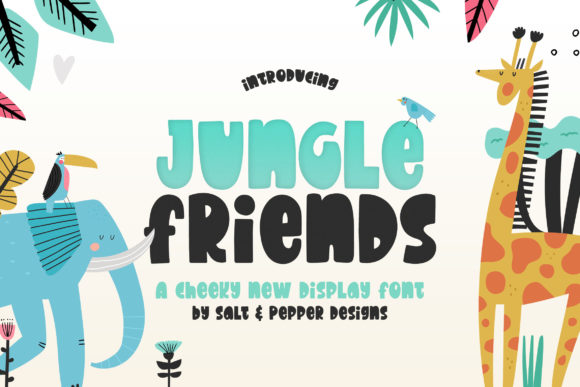
Introducing Jungle Friends Font, the charismatic display font that's ready to bring life and cheer to your creative projects! Its playful, thick letters dance across any surface, leaving a trail of joy and whimsy.
Picture this: your party invitations, event posters, and social media graphics transformed with the playful energy of Jungle Friends. Its bold, single-line style adds a touch of youth and exuberance, making every design an irresistible spectacle.
With Jungle Friends, you'll find yourself crafting designs that speak to the heart. Its charming characters evoke a sense of nostalgia, reminding us of the carefree days of childhood. Whether it's a birthday card for a loved one or a poster for a summer festival, Jungle Friends brings a touch of magic to every occasion.
Step into a world of boundless creativity with Jungle Friends. Its versatility knows no bounds, allowing you to weave your imagination into a tapestry of artistic expression. Whether it's a sleek logo for your business, a captivating header for your website, or an eye-catching social media post, Jungle Friends effortlessly adapts to your vision.
Experience the transformative power of Jungle Friends today and unlock a world of creative possibilities. Let its cheerful vibes and playful spirit ignite your imagination and bring your designs to life.